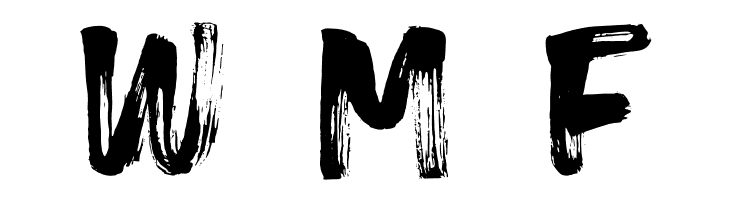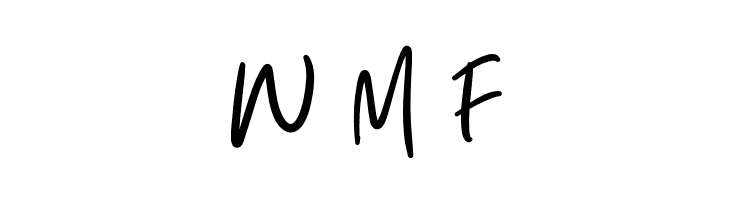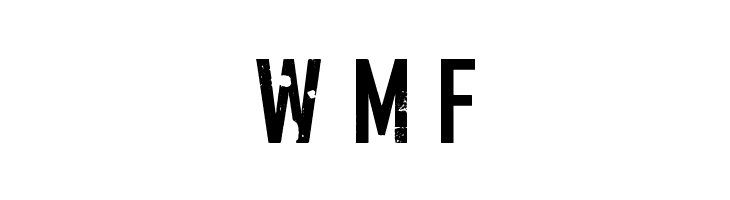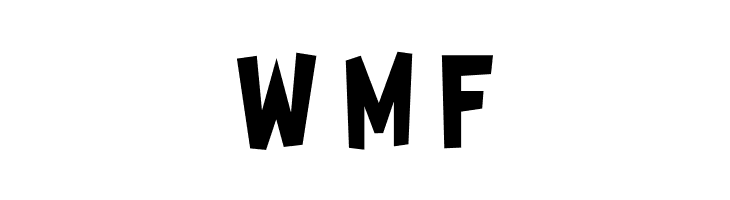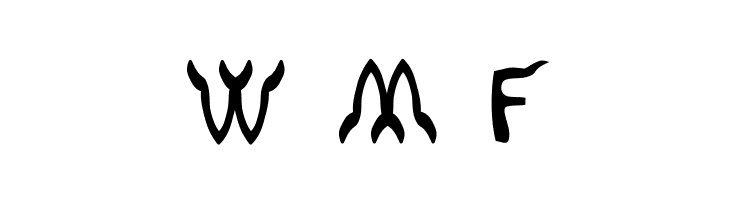
NBA Rockets Font
A bold, narrow font with strong vertical emphasis, ideal for impactful headlines.
Supersonic Rocketship Font
A bold, dynamic font with wide, condensed characters and a modern style.
Rocketship Town Font
A bold, distressed font with a rugged, vintage appearance.
Rockets Font
A playful, space-themed font with unique character embellishments.
RocketsBattleDemo Font
A bold, brushstroke font with a dynamic and textured style.
Rockets Kite Font
A lively handwritten font with fluid, dynamic strokes and a casual vibe.